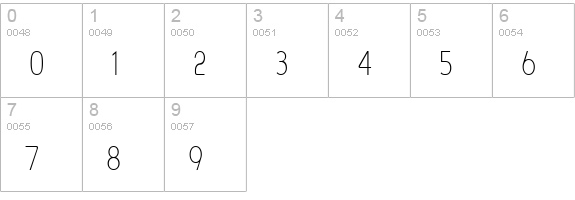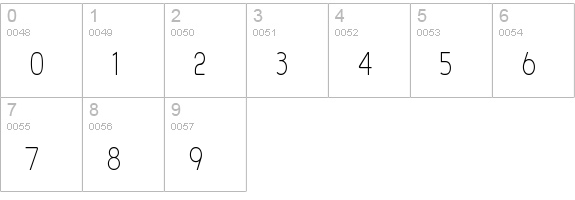
Asenine Thin Font Details
Asenine Thin is a delicate, low-contrast variant in the Asenine typeface family \xE2\x80\x94 well suited to fashion editorial, minimal branding, and high-contrast display.
Asenine Thin is a sleek and modern font that exudes sophistication and elegance. With its clean lines and minimalist design, this typeface is perfect for a wide range of design projects, from branding to editorial design. The thin weight of the font adds a delicate touch, making it ideal for creating a refined and polished look. Best of all, Asenine Thin is available for free download at FontsMarket.com. This means that you can easily access this stylish font without any cost, making it a valuable addition to your font collection. Whether you're working on a professional project or a personal creative endeavor, Asenine Thin is sure to elevate your designs with its timeless appeal and versatility. Download it today and start incorporating this beautiful font into your next project!